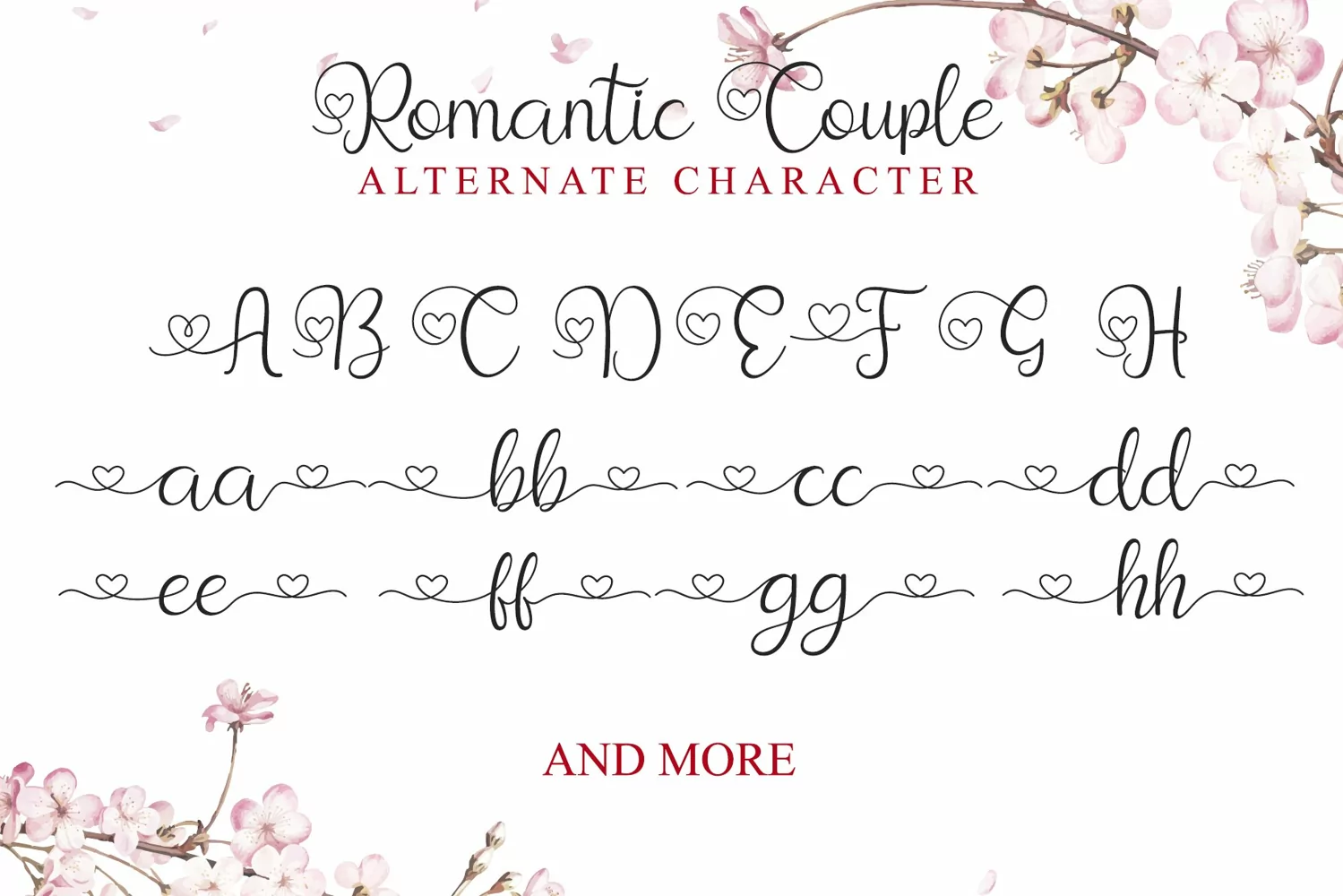
Romantic Couple - valentines fonts
Romantic Couple is a beautiful script font designed with an incredibly modern feel.
It features a varying baseline, smooth lines, gorgeous glyphs and stunning alternates.
Every single letters have been carefully crafted to make your text looks beautiful.
This font includes 304 glyphs, including 104 alternate characters with swashes.
It has over 60 extended Latin characters for language support.
Ligature Character
Multilingual Support
Alternate Character